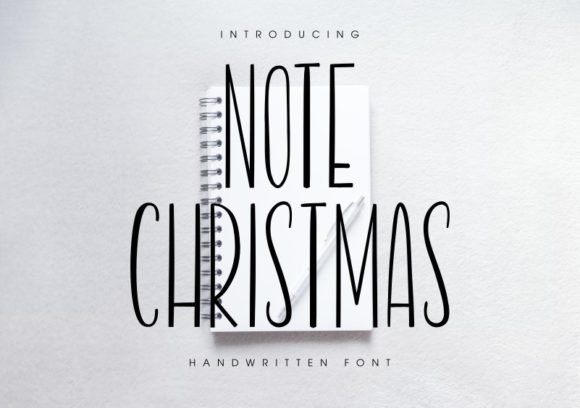
Journey into a whimsical wonderland with Note Christmas, a charismatic handwritten font. Its playful strokes and a touch of quirkiness are sure to infuse your designs with infectious cheer. This enchanting script is perfect for adding a personal touch to your Cricut creations.
Unleash your creativity and transform your projects into works of art. Note Christmas's exuberant energy will captivate your audience, making your designs stand out from the crowd. Every letter dances with joy, adding a delightful touch to your invitations, greeting cards, and social media posts.
With Note Christmas, you'll discover a limitless world of possibilities. Its versatility knows no bounds, whether you're designing for a joyful Christmas card, a playful birthday invitation, or a whimsical social media post. Embrace the magic of this font and watch as your designs come alive with personality.
Imagine your words taking on a life of their own, captivating the hearts of your readers. Note Christmas's enchanting style will make your messages shine, ensuring they leave a lasting impression. Your designs will exude warmth and charm, creating a connection that resonates with your audience.
So why settle for ordinary when you can unleash the magic of Note Christmas? Dive into the world of imagination and creativity, and experience the transformative power of this remarkable font. Let Note Christmas take your designs to new heights and create memories that last a lifetime.